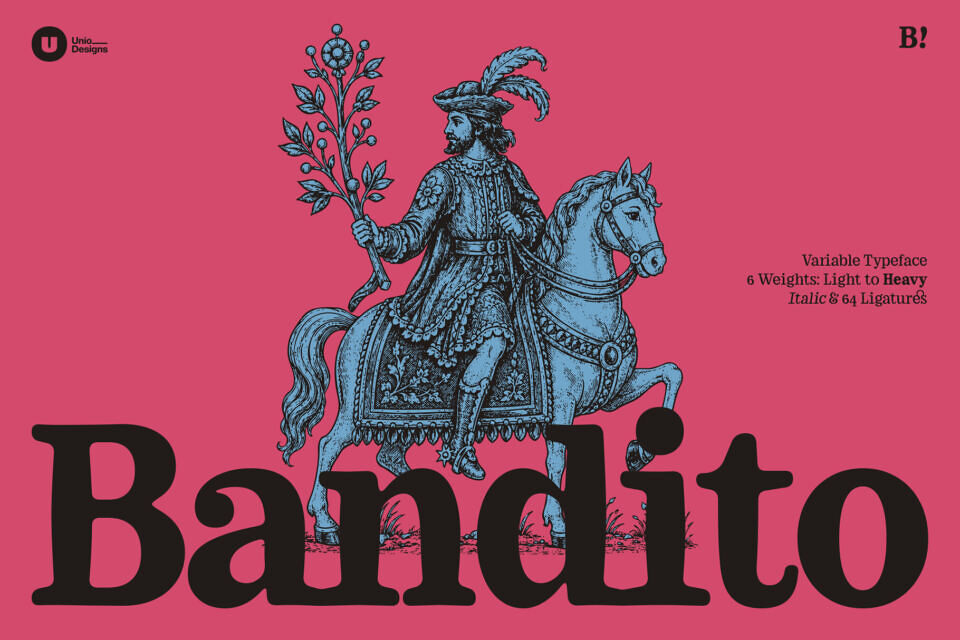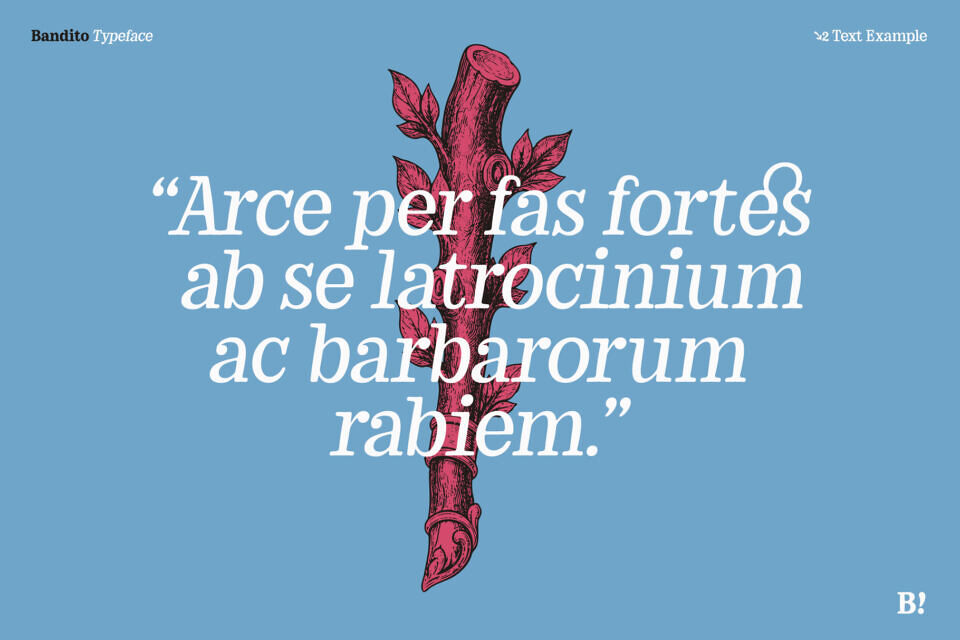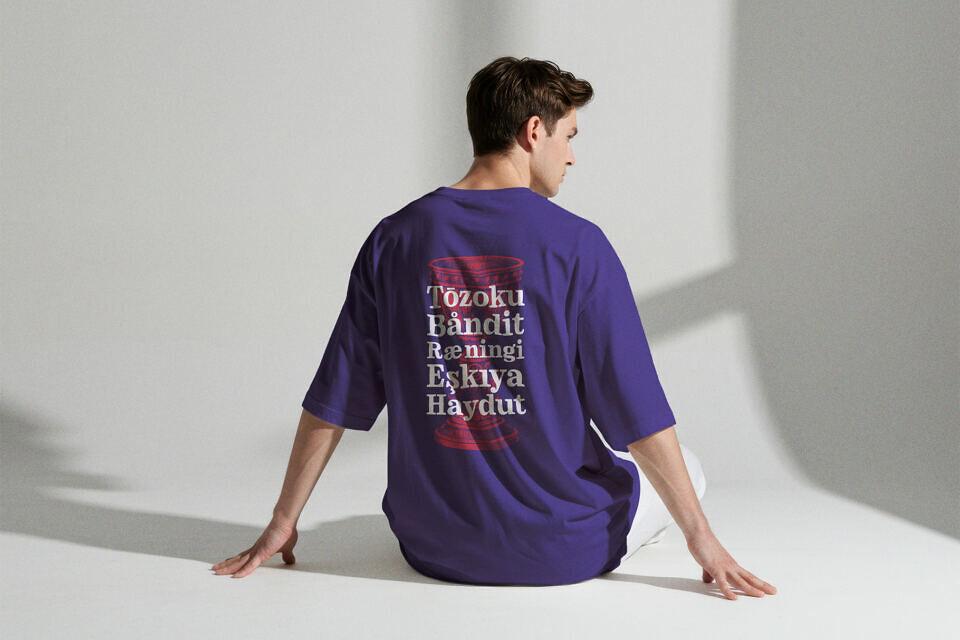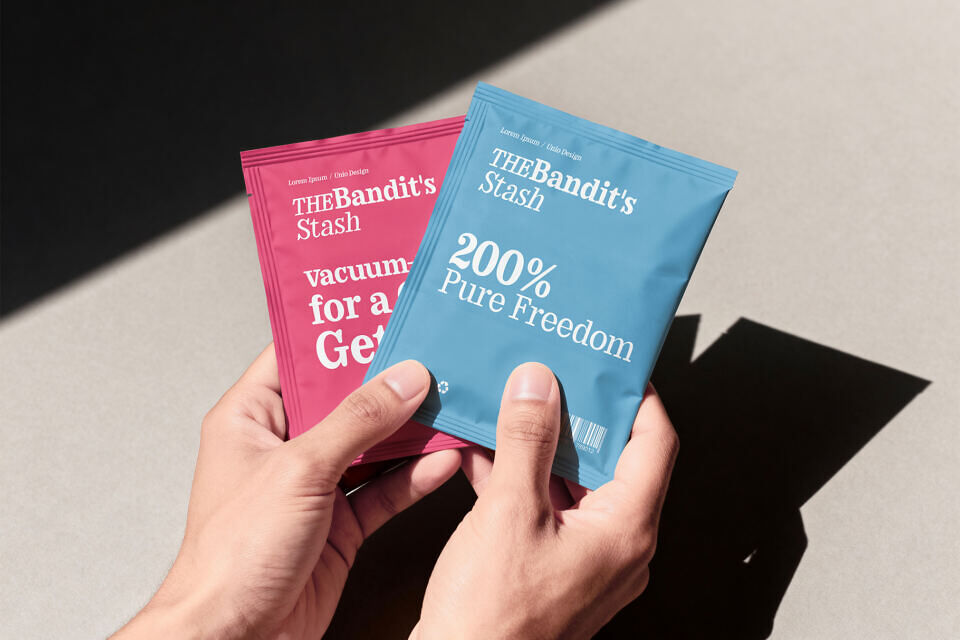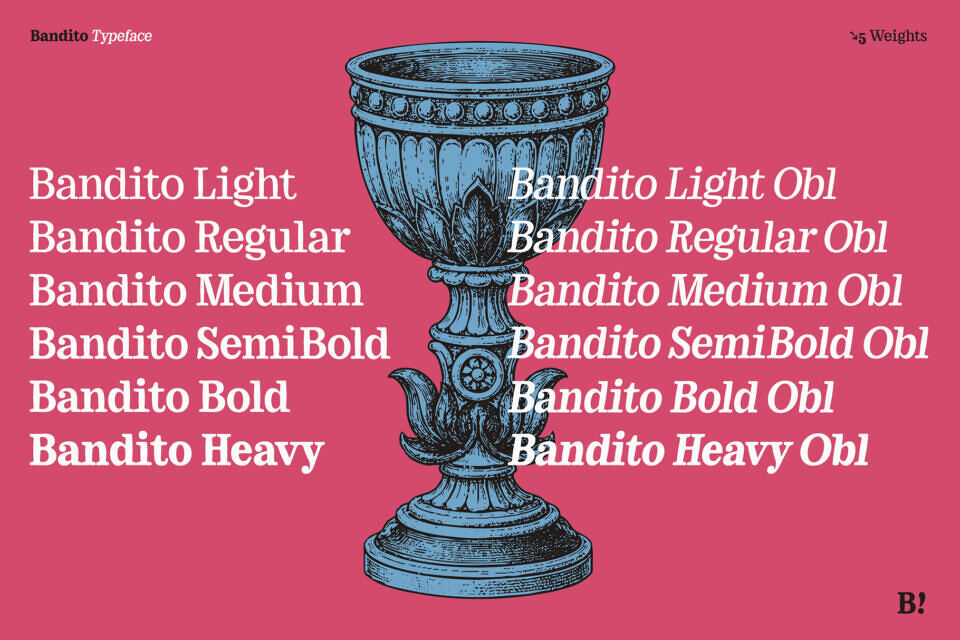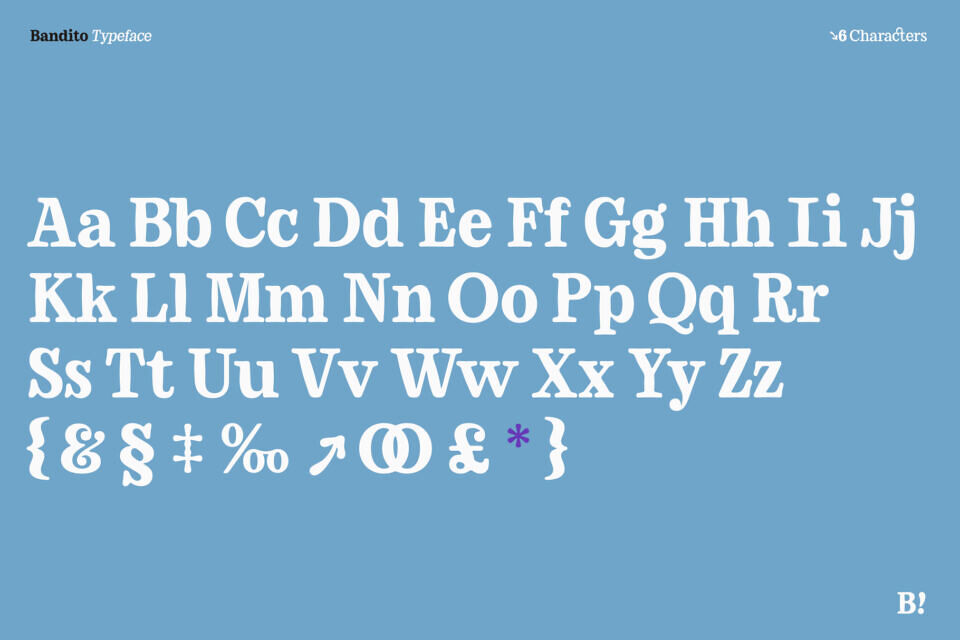
Bandito Font Family
Unleash a bold new standard in typography with Bandito, a powerhouse variable typeface. This font is a study in unyielding strength and refined heritage, featuring robust, high-contrast serif letterforms that radiate architectural authority.
As a variable font, Bandito offers a massive spectrum of creative control, spanning 6 weights from Light to Heavy, plus Italics and a library of 64 artistic ligatures. It is an extraordinary choice for cinematic editorial headers, luxury beverage branding, high-end apparel logos, and bold advertising campaigns.